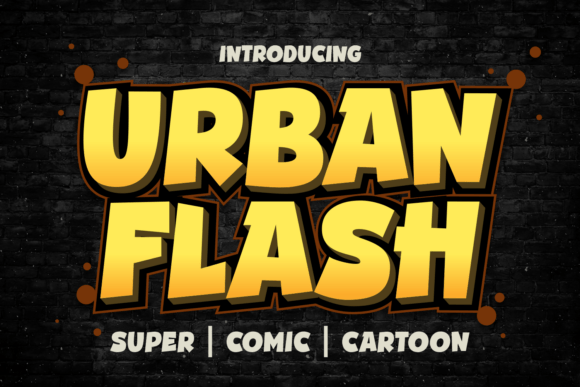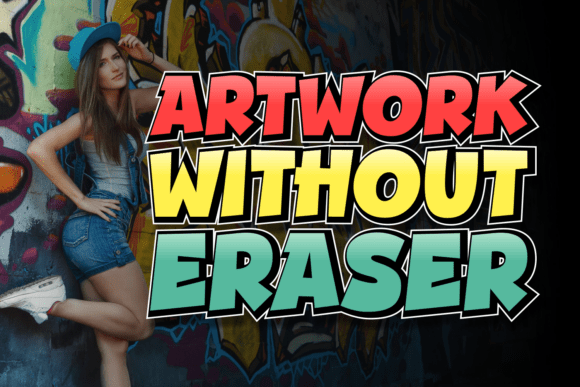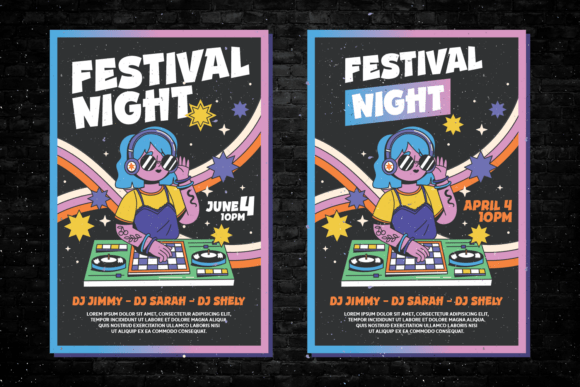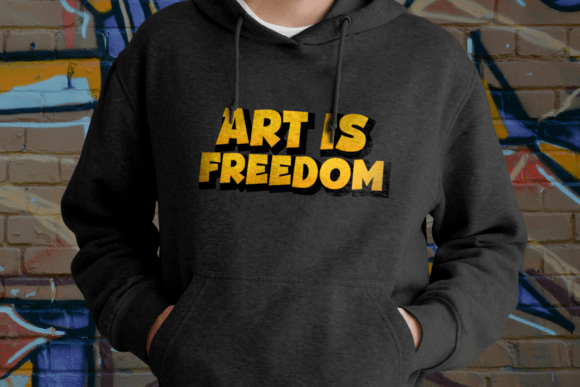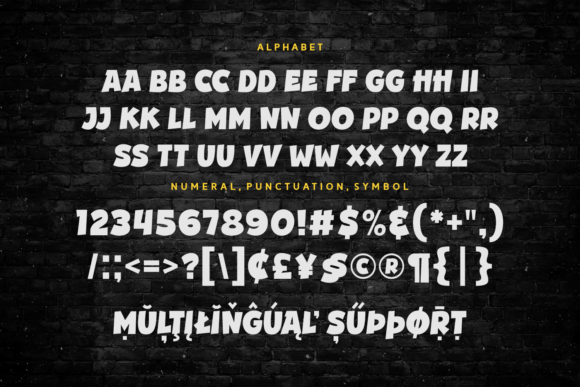
Urban Flash Font
“Urban Flash” bursts onto the scene as a dynamic and attention-grabbing font, immediately setting itself apart with its bold, super comic, and cartoonish aesthetic. Its strength lies in its energetic and playful letterforms, featuring thick strokes, subtle sense of motion or impact within each character. This inherent liveliness makes it a fantastic choice for designs that need to exude fun, excitement, and a youthful vibe. The inclusion of both uppercase and lowercase letters, along with a comprehensive set of numerals and punctuation marks, ensures versatility for various textual needs.
Designers and creators working on projects targeting children, comic book enthusiasts, or those seeking a retro or pop-art feel will find “Urban Flash Font” particularly beneficial. Its features would include its high readability despite its stylistic flair, its ability to command attention in headlines and titles, and its potential to add a unique and memorable personality to branding, posters, game designs, and social media graphics. Its accented characters for multilingual support further broaden its appeal and usability across different linguistic contexts.